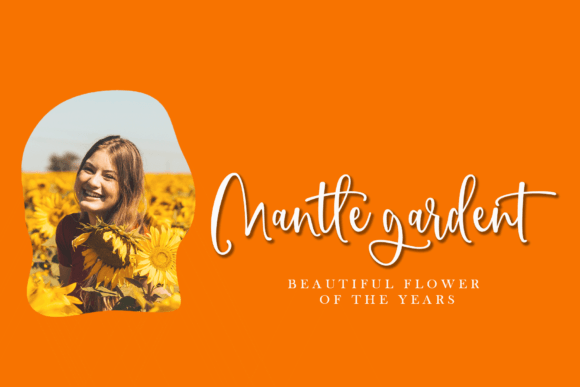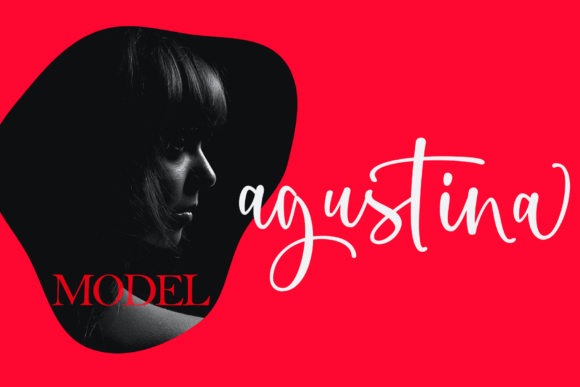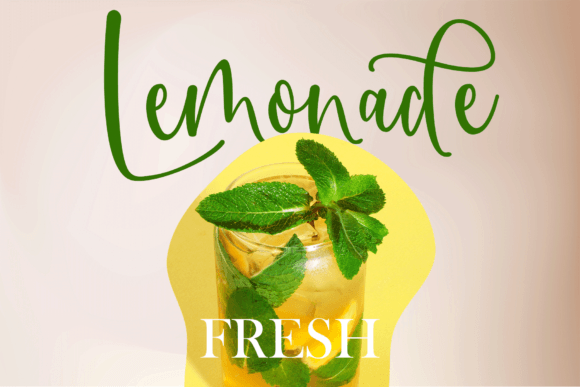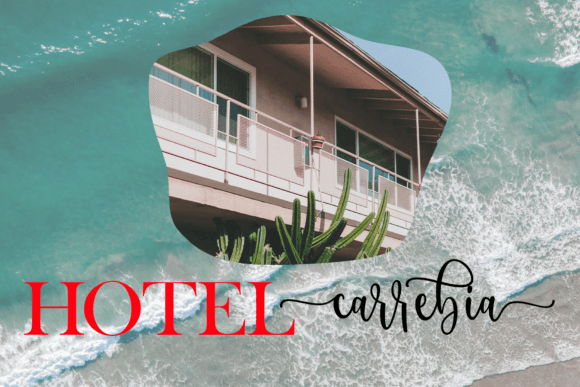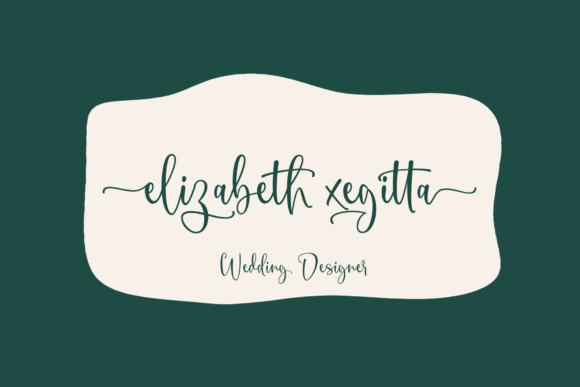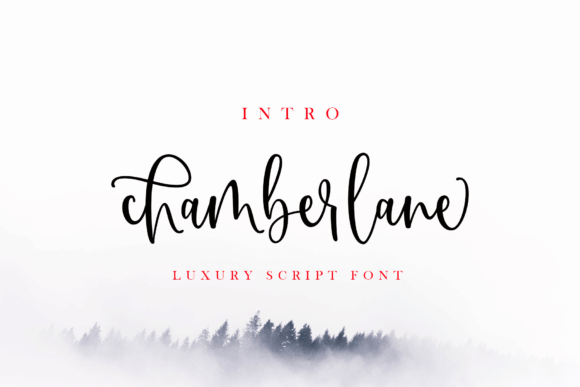
Introducing Chamberlane Font: Elevate Your Designs with Elegance and Sophistication
In the world of typography, a well-crafted font can make all the difference in elevating your design from ordinary to extraordinary. If you’re a designer, crafter, or DIY enthusiast looking for a stylish and versatile calligraphy font, look no further than Chamberlane. This beautiful font boasts a unique blend of classic elegance and modern flair, making it perfect for a wide range of creative projects.
The Charm of Chamberlane Font
Chamberlane Font is a stunning calligraphy font that features a varying baseline, smooth lines, and a classic yet interesting touch. Its distinctive characteristics make it an excellent choice for adding a touch of sophistication and refinement to your designs. Whether you’re creating headings, signatures, logos, posters, t-shirts, signage, labels, wedding invitations, badges, or any other type of visual project, Chamberlane is sure to impress.
Key Features of Chamberlane Font
- Varying Baseline: Chamberlane’s unique varying baseline gives it a dynamic, hand-crafted feel that’s perfect for creating eye-catching designs.
- Smooth Lines: The font’s smooth lines and curves create a sense of fluidity and elegance, making it ideal for designs that require a touch of sophistication.
- Classic yet Interesting Touch: Chamberlane’s classic design is infused with an interesting touch that sets it apart from more traditional calligraphy fonts.
- PUA Encoded: Chamberlane is PUA (Private Use Area) encoded, which means you can access all of the glyphs and swashes with ease, giving you maximum flexibility and creative control.
One of the best things about Chamberlane Font is its incredible versatility. Its wide range of uses makes it an excellent addition to any designer’s toolkit. Here are just a few ideas to get you started:
- Headings and Titles: Use Chamberlane to create stunning headings and titles for your blog posts, articles, or website.
- Signatures and Logos: Add a touch of elegance to your signatures and logos with Chamberlane’s beautiful calligraphy.
- Posters and Flyers: Create eye-catching posters and flyers that showcase your brand’s personality and style.
- T-Shirts and Merchandise: Use Chamberlane to create unique and stylish designs for t-shirts, mugs, and other merchandise.
- Wedding Invitations: Make your wedding invitations truly special with Chamberlane’s beautiful calligraphy.
- Signage and Labels: Use Chamberlane to create eye-catching signage and labels for your business or event.
Why Choose Chamberlane Font?
With so many fonts available, why choose Chamberlane? Here are just a few reasons why designers and crafters love this beautiful calligraphy font:
- Unique and Distinctive: Chamberlane’s unique design sets it apart from more traditional calligraphy fonts.
- Highly Versatile: Chamberlane can be used for a wide range of design projects, from headings and titles to signatures and logos.
- Easy to Use: Chamberlane is PUA encoded, making it easy to access all of the glyphs and swashes.
- Elegant and Sophisticated: Chamberlane adds a touch of elegance and sophistication to any design.